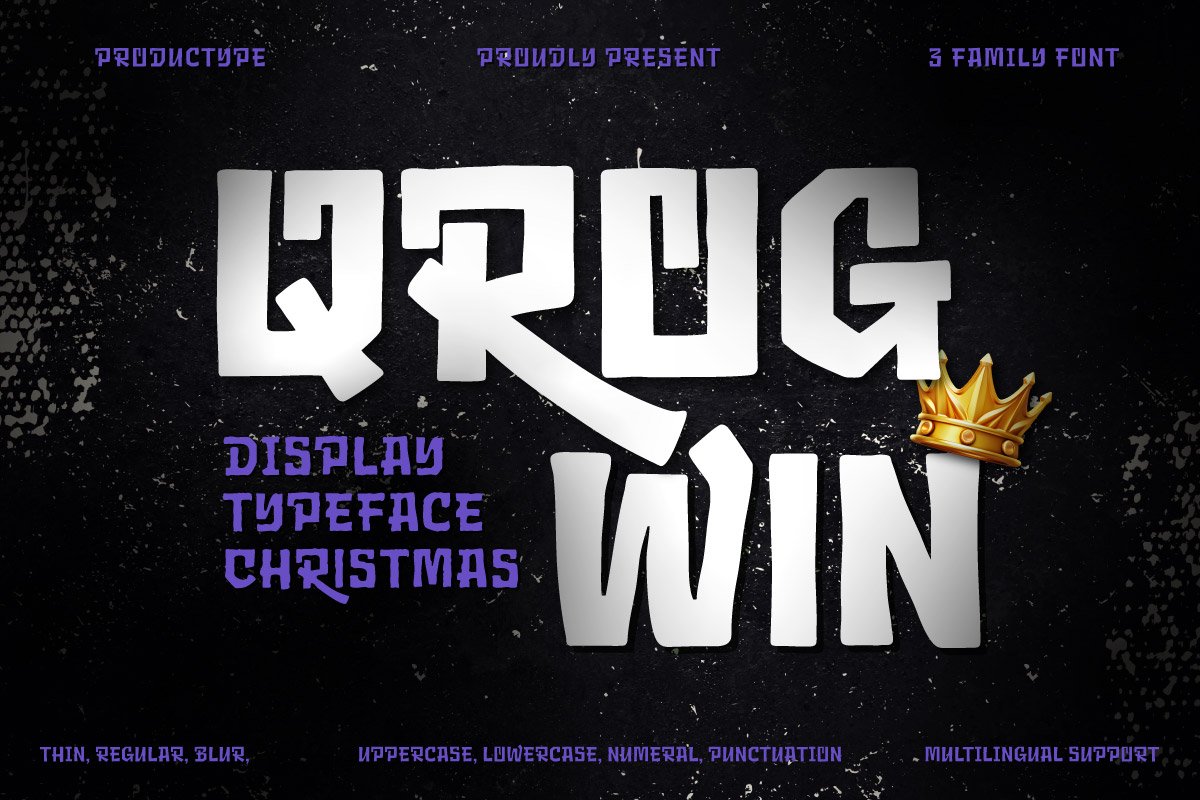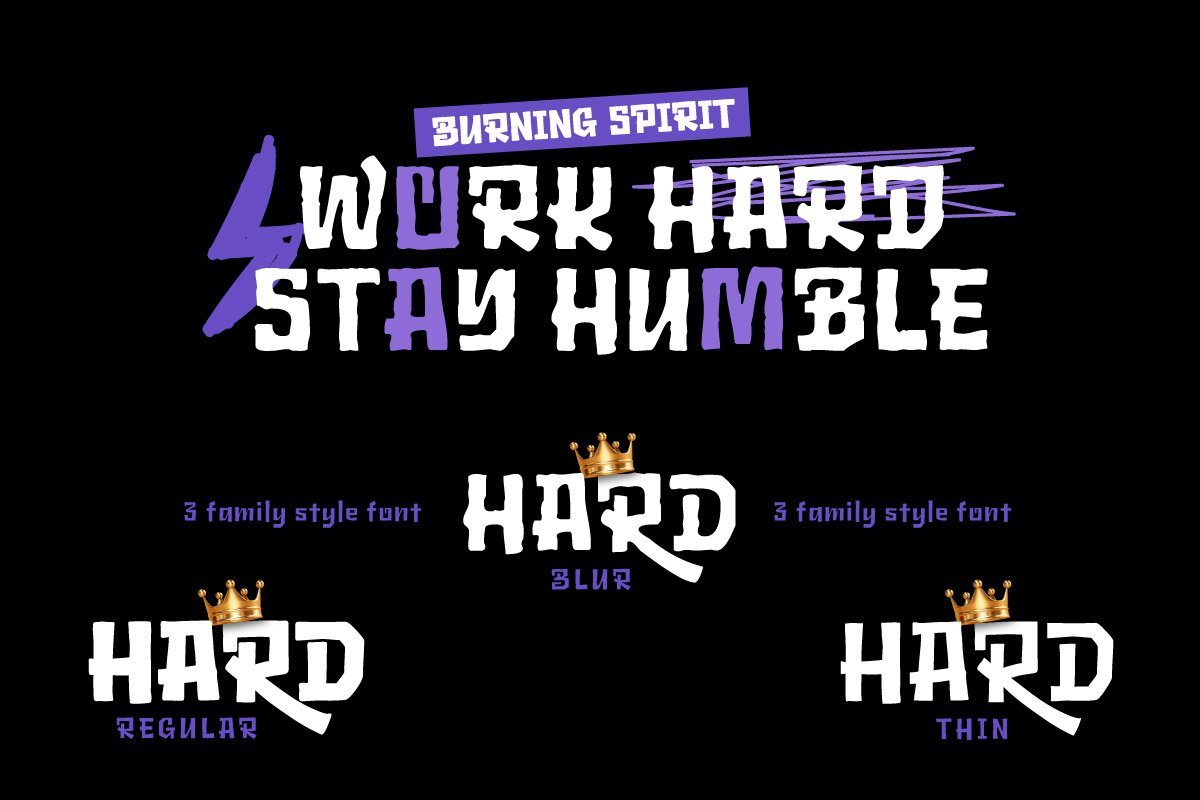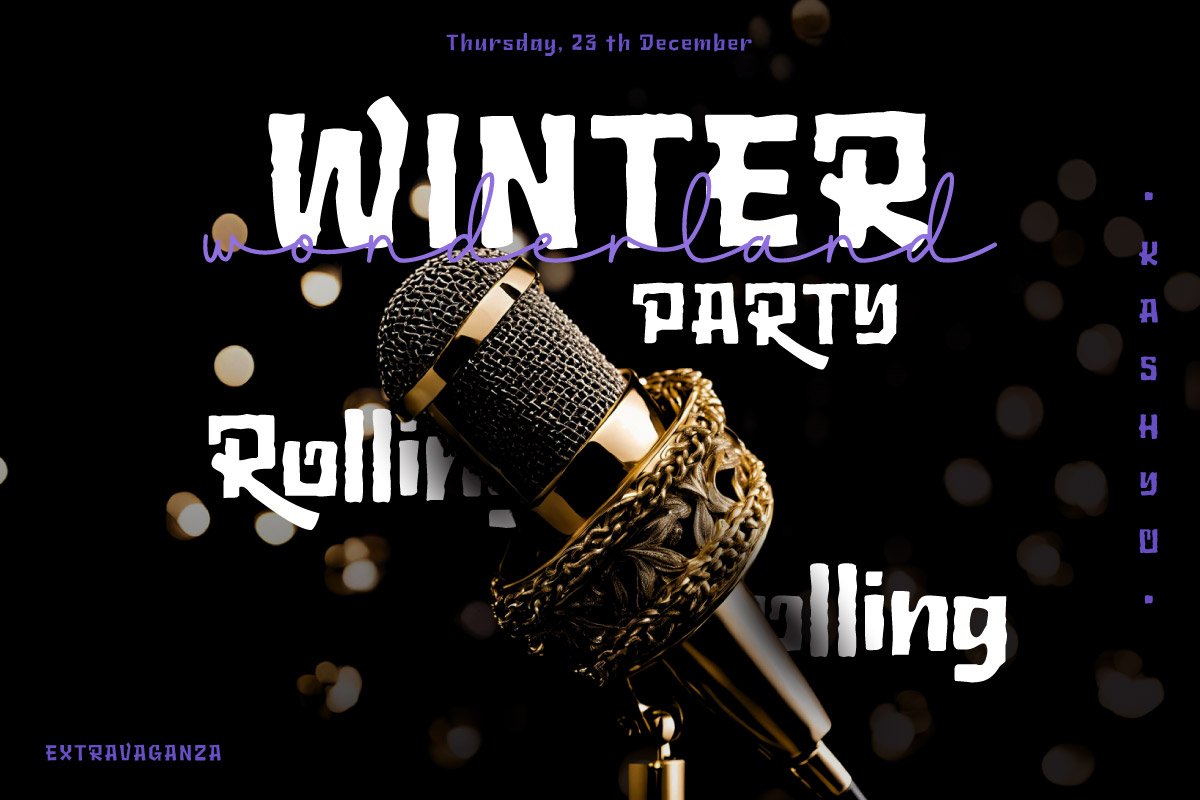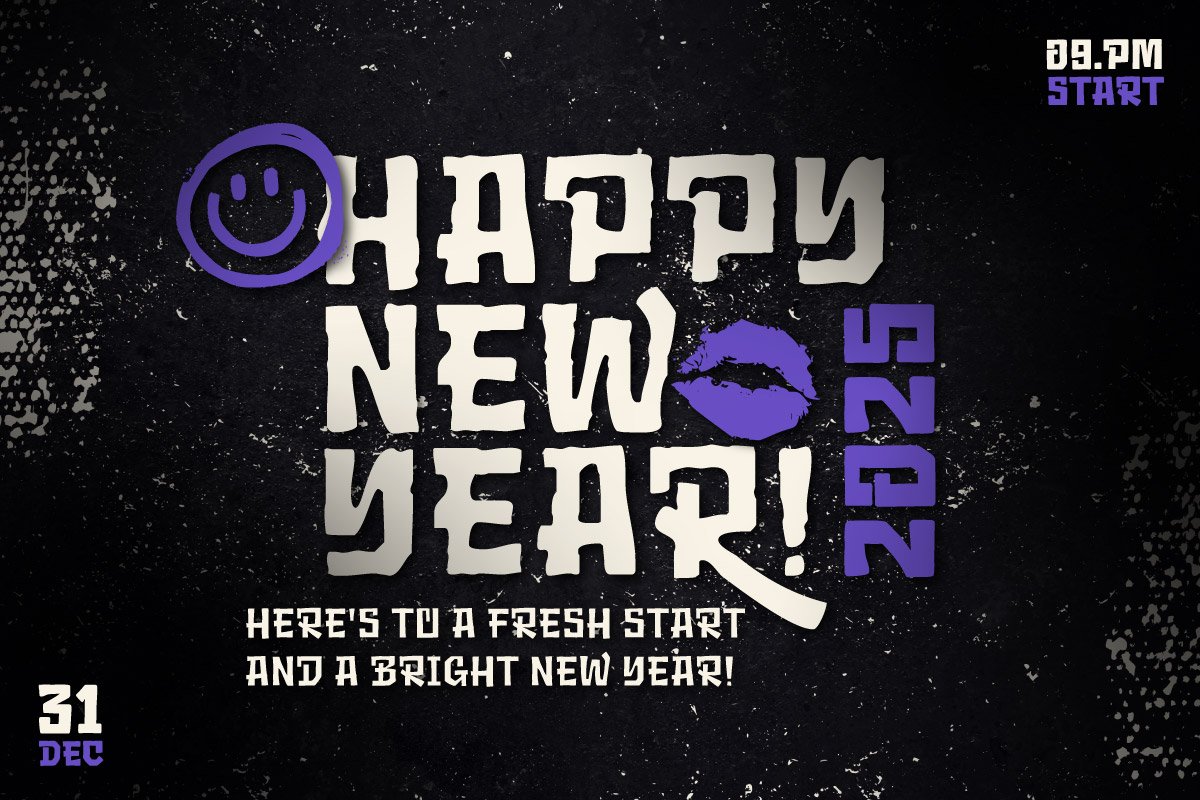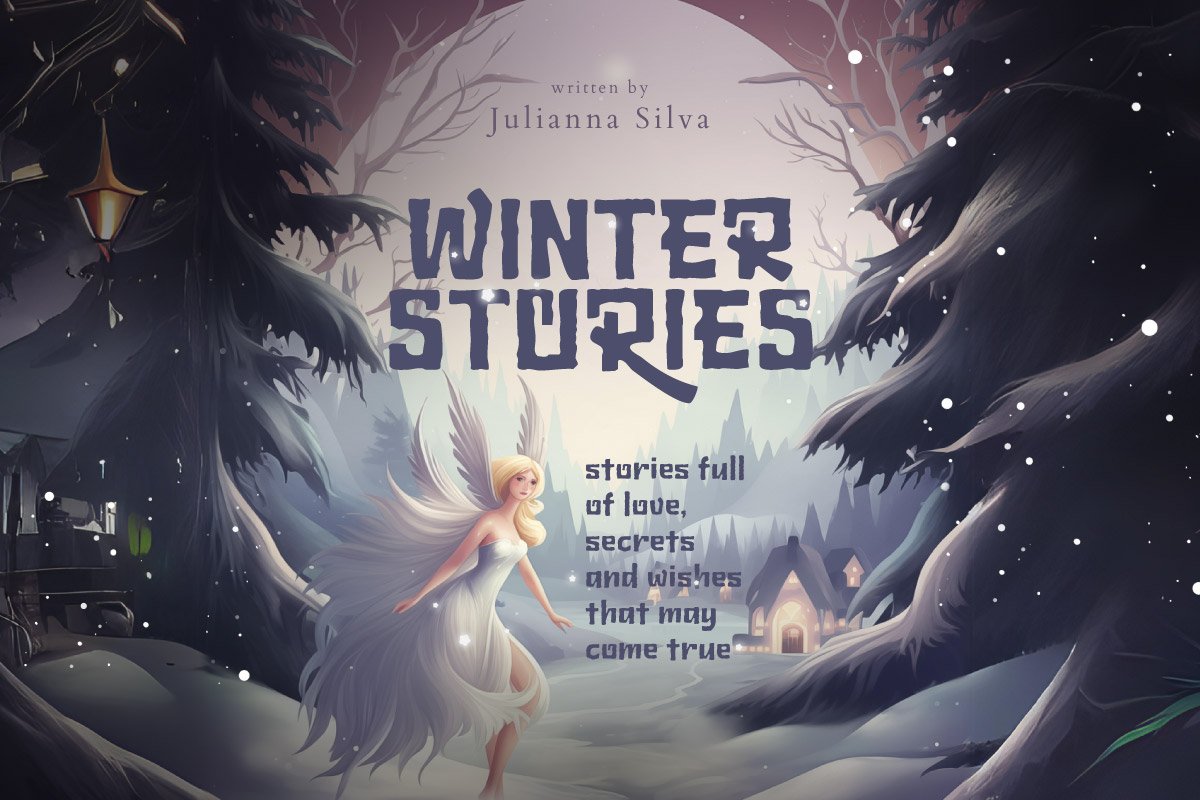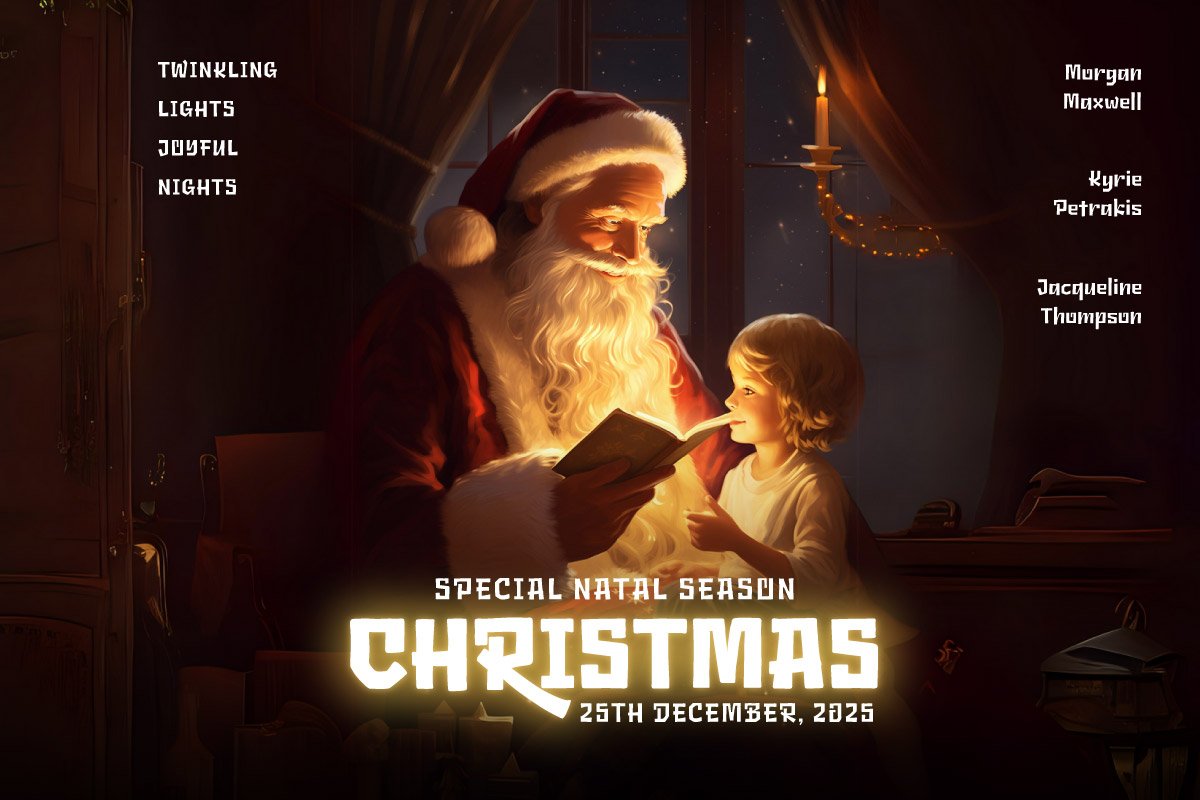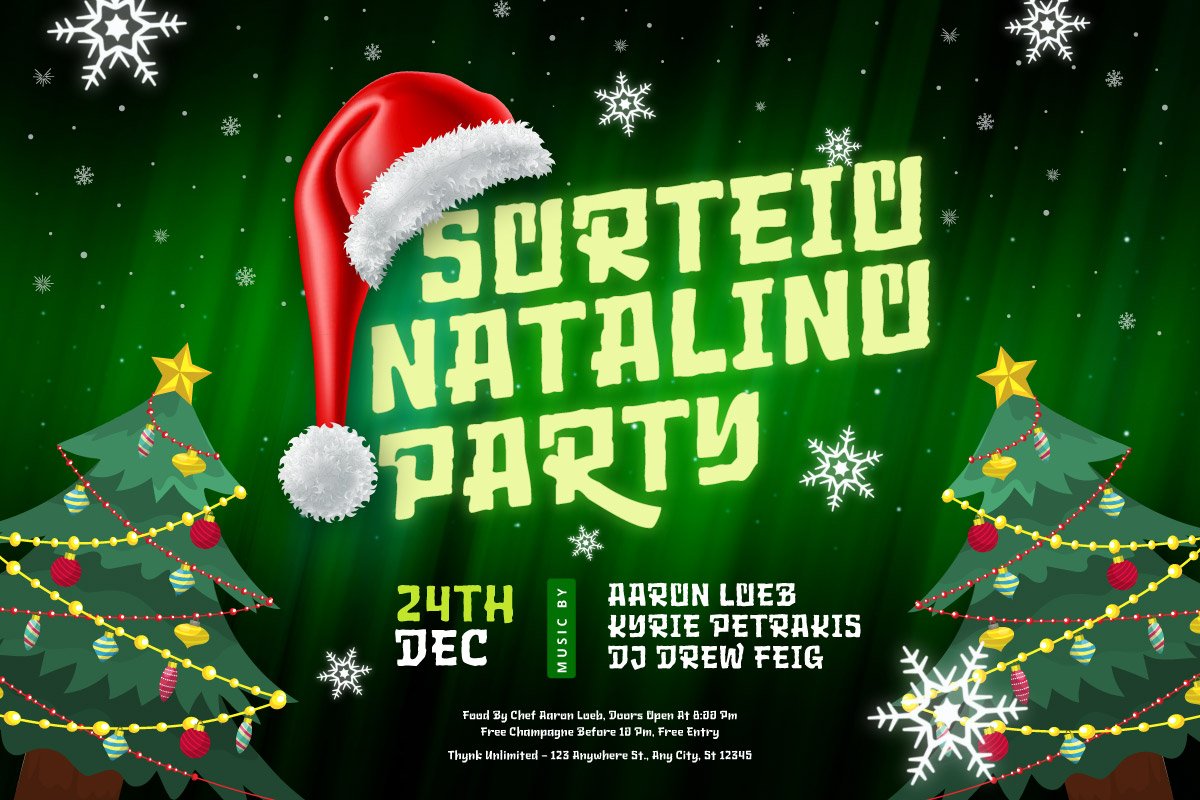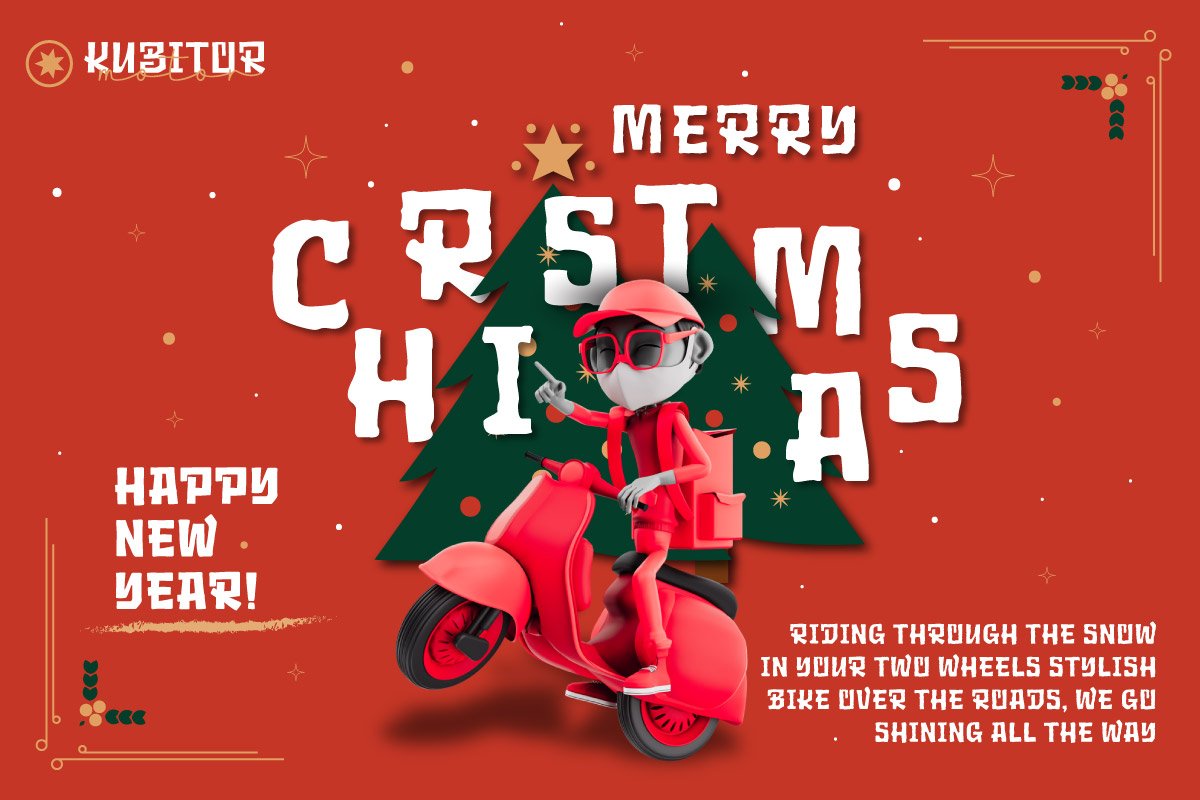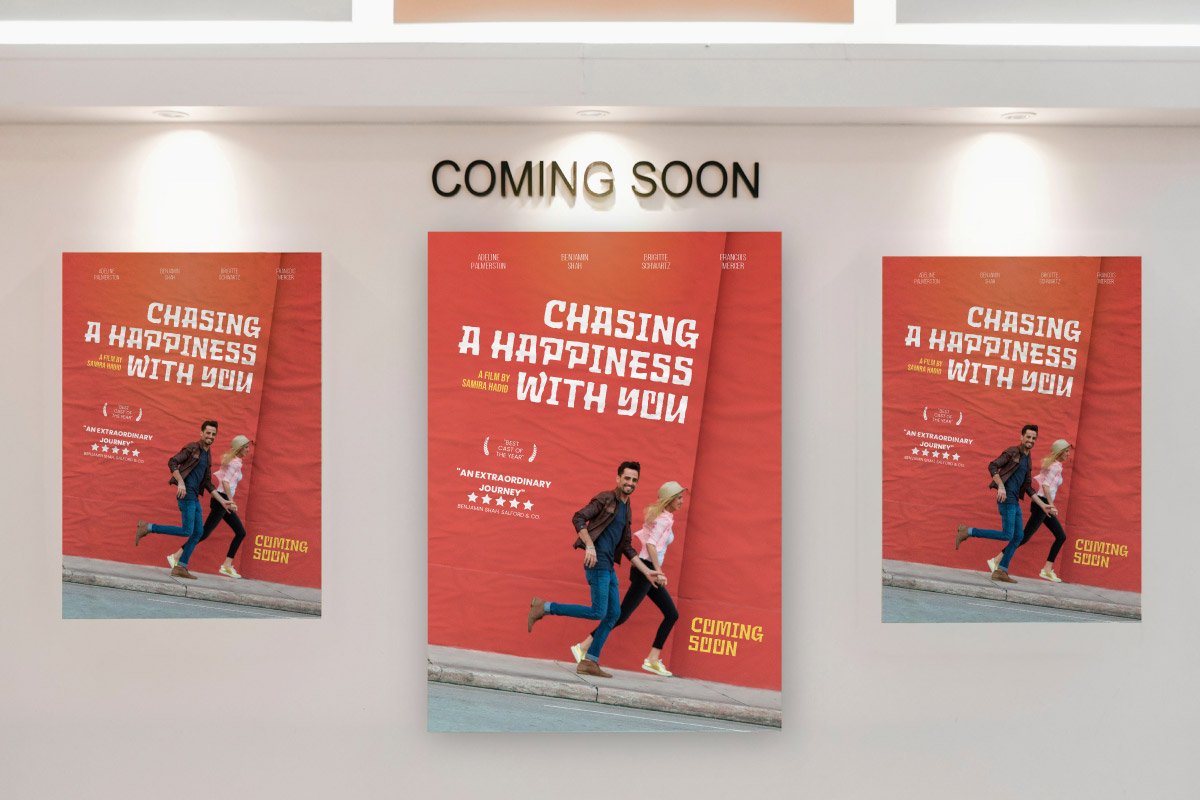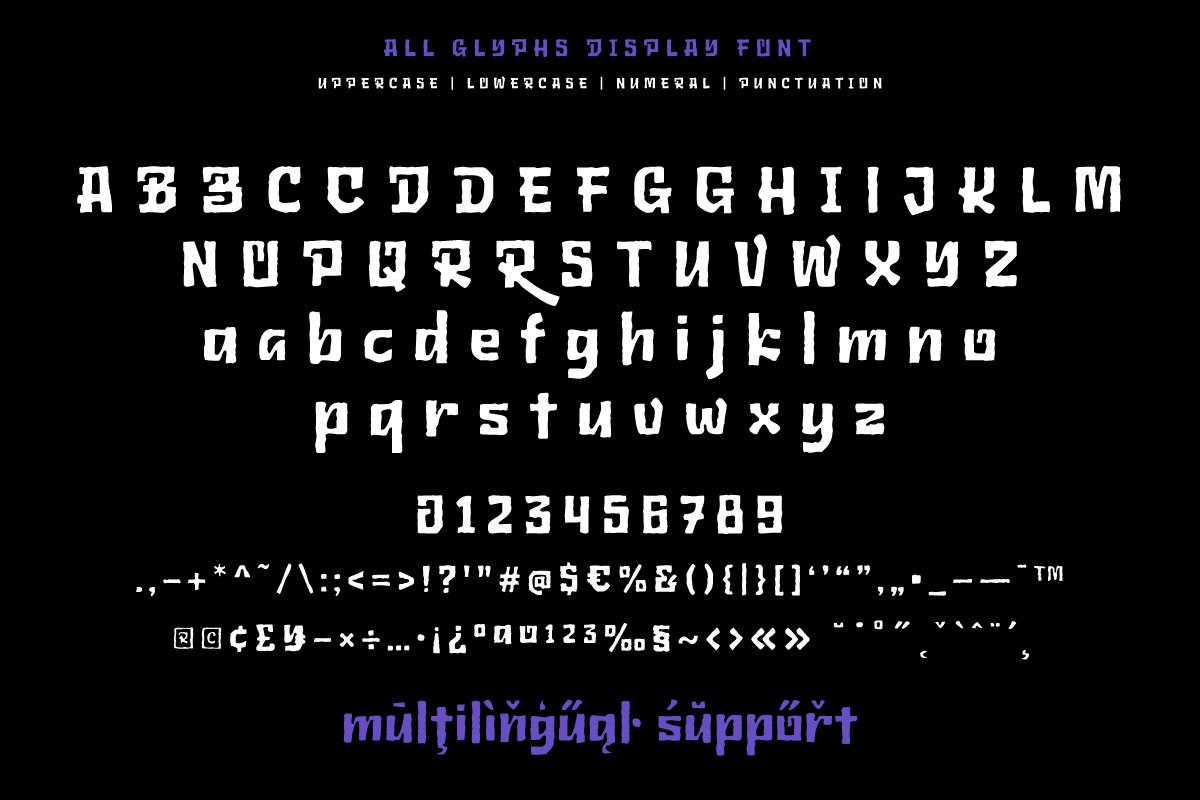
5. Qrog Win – Christmas Display Font
Qrog Win – Christmas Display Font
Introducing Qrog Win, the ultimate Christmas display font that captures the magic and warmth of the holiday season. With its playful curves and festive charm, Qrog Win will add a merry touch to all your Christmas-themed projects, making your designs sparkle with holiday cheer.
Key Features:
• Custom-designed for Christmas and holiday themes
• Playful, festive letterforms with a warm and inviting feel
• Perfect for Christmas cards, holiday posters, gift tags, and festive branding
Ideal Uses:
✓ Christmas greeting cards
✓ Holiday party invitations
✓ Festive product packaging
✓ Seasonal event logos
✓ Winter-themed social media graphics
Qrog Win is the perfect choice for designers looking to bring joy, warmth, and a bit of whimsy to their holiday projects. Its jolly and cheerful style will make your designs stand out, spreading festive vibes and holiday spirit.
Celebrate the season in style — design with Qrog Win!